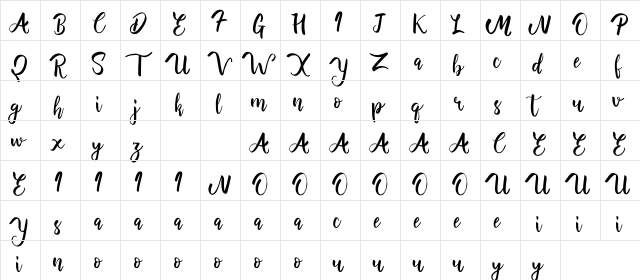
Westminster Regular
Design Context for Westminster Typeface
Westminster is a composed and adaptable typeface that performs quietly and consistently across a wide range of design contexts.